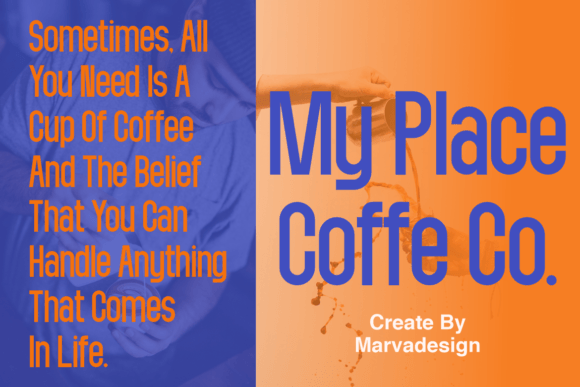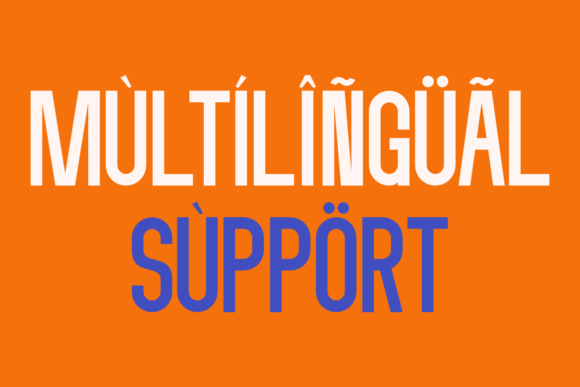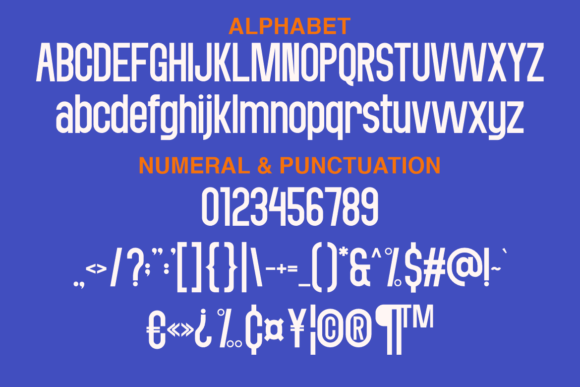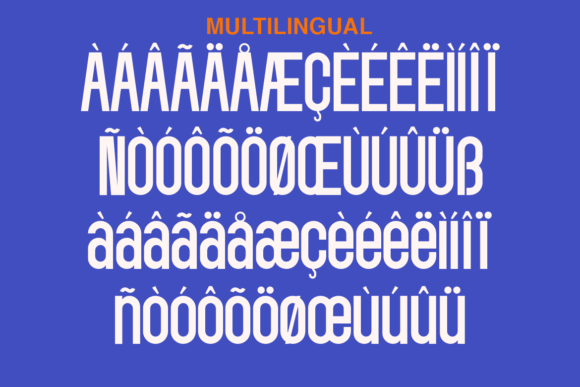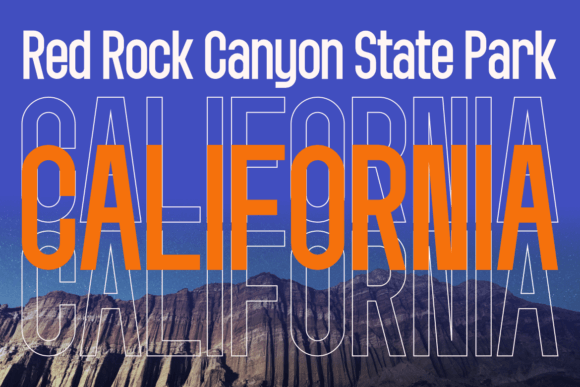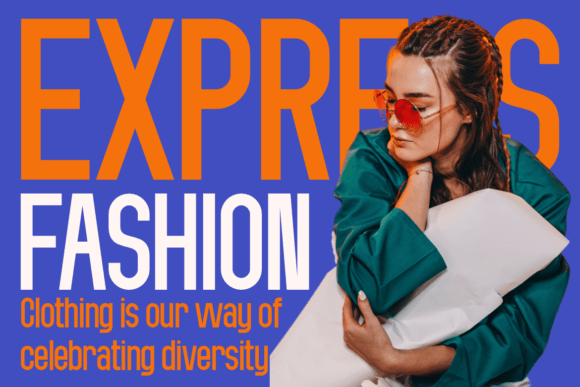
Introduction to Qanielo Font
Have you ever been in a moment where the perfect design element was just out of reach? You’re crafting a logo, a social media graphic, or a template, and everything seems to be falling into place – except for that one crucial element that could elevate your design to the next level. For designers, finding the right font can be a game-changer, and that’s where Qanielo Font comes in.
This modern display font is more than just a design resource; it’s a tool that can breathe new life into your creative projects. With its bold and authentic style, Qanielo Font is perfect for any branding project, from logos to template design and beyond. Whether you’re working on a high-end campaign or a personal project, this font is sure to make a statement.
What sets Qanielo Font apart is its versatility and high quality. Whether you’re looking for a font with a transparent background for a seamless design or need a free download for a quick project, Qanielo Font is an excellent choice. With its bold and modern aesthetic, this font is sure to become a valuable addition to any designer’s toolkit.
Key Features of Qanielo Font
- Features a clean and modern design, perfect for use in logos, branding materials, and digital products.
- Includes a comprehensive character set, supporting multiple languages and alphabets, making it a versatile design resource.
Honest Review: Qanielo Font
As a designer, I’m always on the lookout for high-quality design resources to elevate my creative projects. Recently, I stumbled upon the Qanielo Font, and I’m excited to share my thoughts on this versatile font.
What works well: ✨ The Qanielo Font has a unique, modern design that’s perfect for creating eye-catching headlines and titles. Its high-quality design makes it suitable for a wide range of creative projects, from logos to brochures. The font also comes in a transparent background version, making it easy to use on different backgrounds.
- High-quality design: The font’s modern design and crisp typography make it a great choice for professional-looking projects.
However, there are some limitations: ⚠️ The font may not be suitable for small text sizes, as the letters can appear blurry. Additionally, the font’s versatility can make it challenging to pair with other fonts.
Overall, I’m impressed with the Qanielo Font’s unique design and high-quality features. While it may have some limitations, it’s an excellent addition to any designer’s toolkit, and I would definitely recommend it for creative projects that require a modern, eye-catching font.